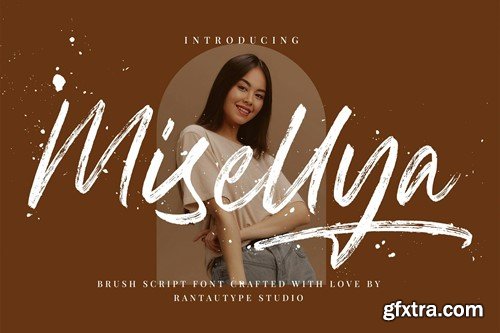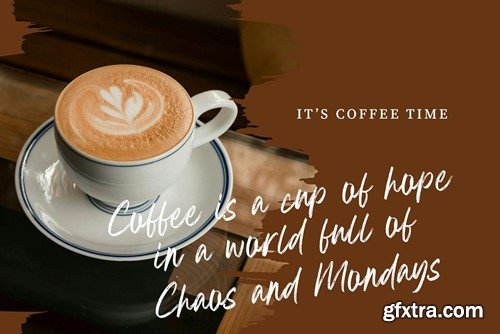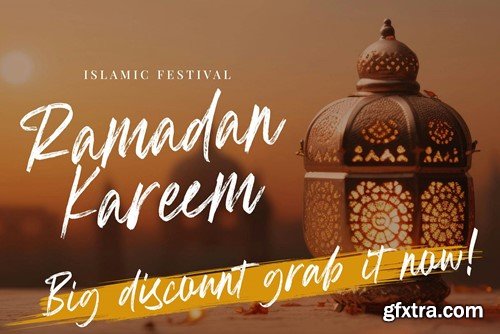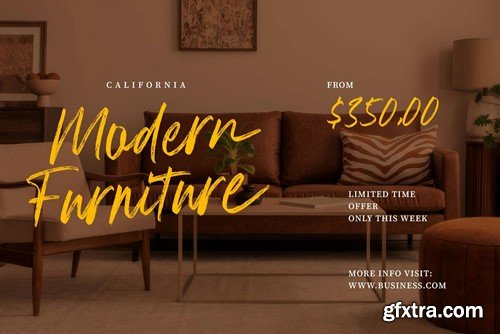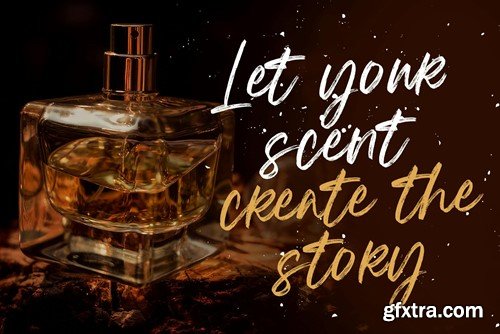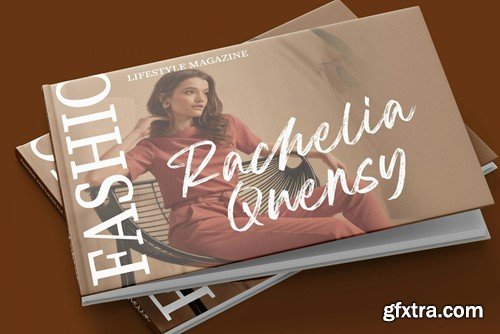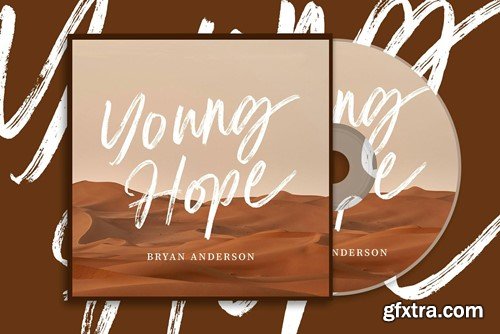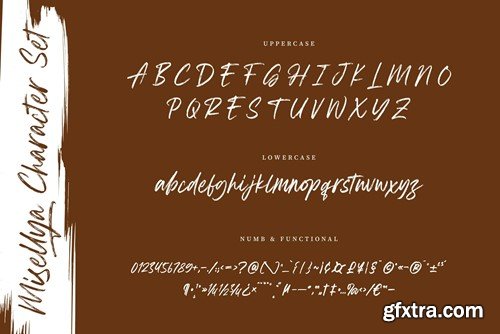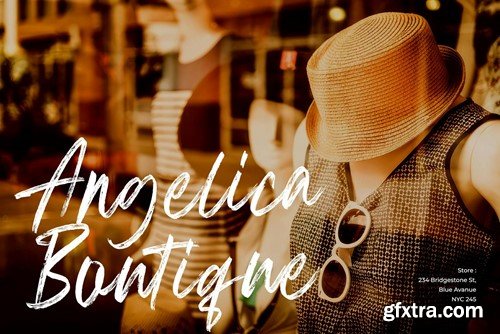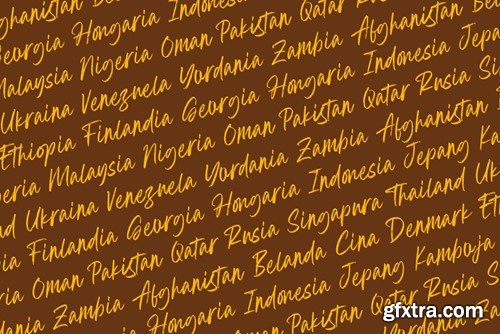
Misellya Brush Script Font BUB2EW7
Misellya is brush script font with a visible brush effect and natural scratches. Stylish brush stoke make this font eye catch and versatile. Misellya is a perfect choice for any creative endeavor, chic, lifestyle design such as logos, advertisements, watermark on photography, stationery, branding project, display and magazine, invitation, corporate brand, product design, label, business project and many other project need handwriting taste. What you have: Fonts include multilingual support for: Afrikaans, Albanian, Basque, Bemba, Bena, Breton, Catalan, Chiga, Cornish, Danish, Dutch, English, Estonian, Filipino, Finnish, French, Galician, German, Icelandic, Indonesian, Irish, Italian, Kinyarwanda, Luxembourgish, North, Norwegian, Portuguese, Romansh, Rombo, Rundi, Scottish, Gaelic, Sena, Shambala, Shona, Soga, Somali, Spanish, Swahili, Swedish, Swiss, German. Thank you for your purchase! Hope you enjoy with our font!